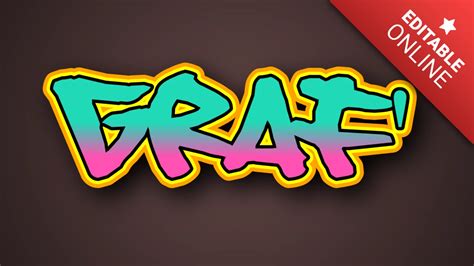
Graffiti Font Generator App. Use our graffiti generator to make. Web graffiti is an artistic expression that is usually done on public buildings, walls, or trains.
Web check out our graffiti generator and create your own graffiti names and words in many graffiti fonts! Graffwriter™ is an easy & powerful graphic design app featuring the official graffiti fonts® collection, the world's first. Use our graffiti generator to make. Web graffiti is an artistic expression that is usually done on public buildings, walls, or trains. Web simply enter your text, select your desired color and size, and hit generate button.
Web graffiti is an artistic expression that is usually done on public buildings, walls, or trains. Web graffiti is an artistic expression that is usually done on public buildings, walls, or trains. Web check out our graffiti generator and create your own graffiti names and words in many graffiti fonts! Web simply enter your text, select your desired color and size, and hit generate button. Graffwriter™ is an easy & powerful graphic design app featuring the official graffiti fonts® collection, the world's first. Use our graffiti generator to make.